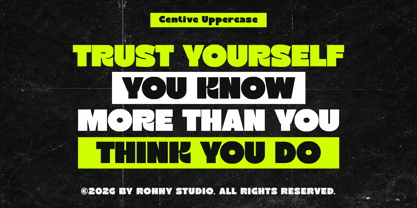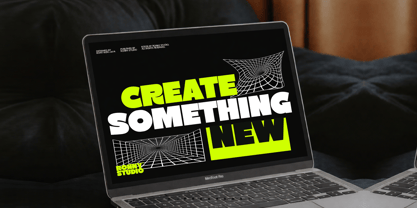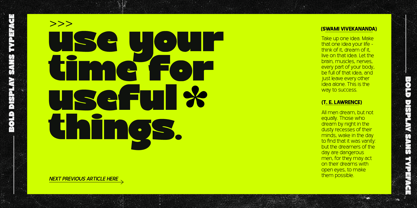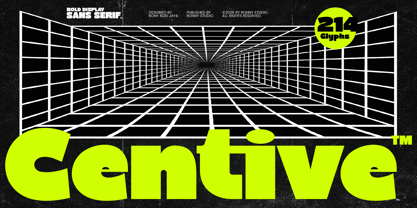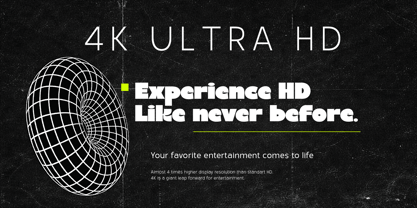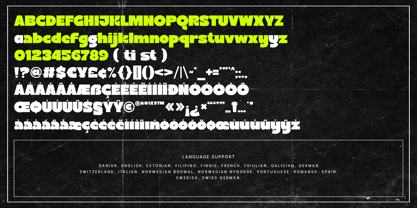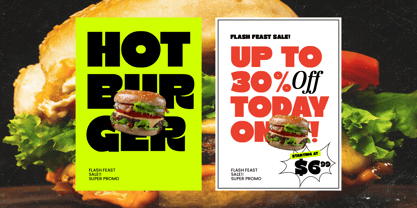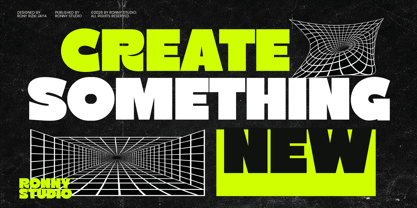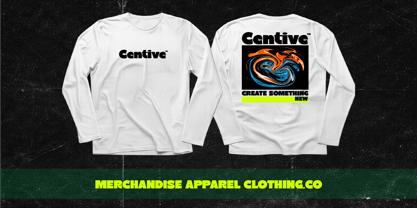
Centive
by Ronny Studio
The Centive Font Family was designed by Rony Rizki Jaya and published by Ronny Studio. Centive contains 1 styles. More about this family
Centive is a bold and powerful display sans serif designed to deliver maximum visual impact. Built with strong geometric shapes and confident proportions, this typeface brings a modern futuristic energy inspired by tech aesthetics and retro grid visuals. Its thick letterforms and clean construction make it highly legible while maintaining a striking personality. Whether used in large headlines or bold branding statements, Centive ensures your message stands out instantly. Perfect For -Posters and flyers -Branding and logo design -Social media graphics -Editorial headlines -Website headers -Advertising campaigns -Event promotions -Tech and futuristic design themes